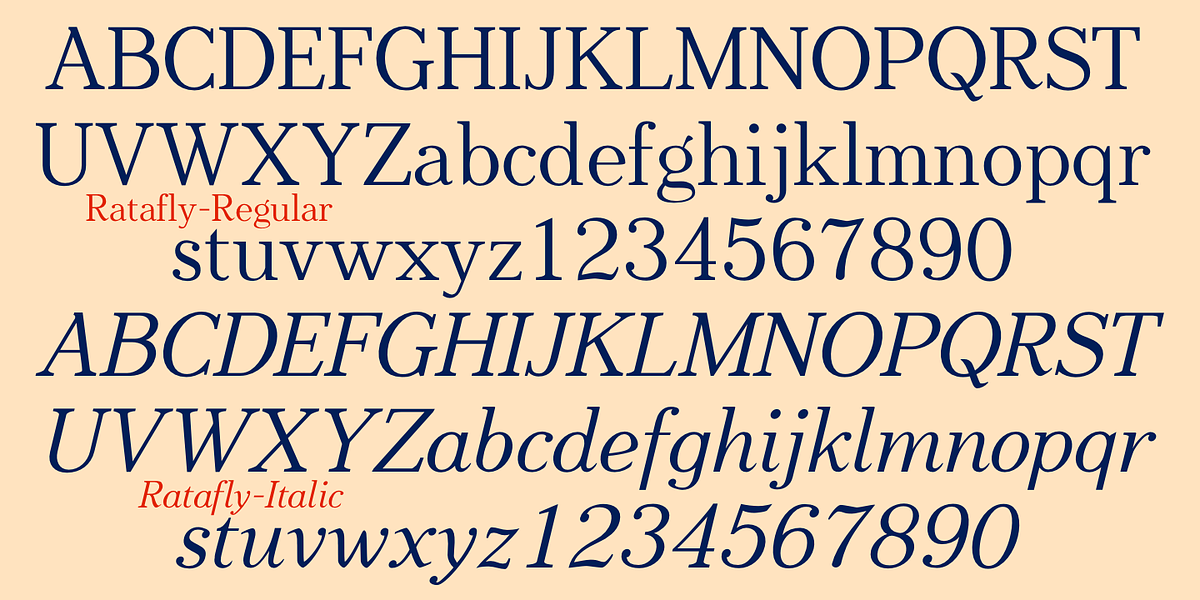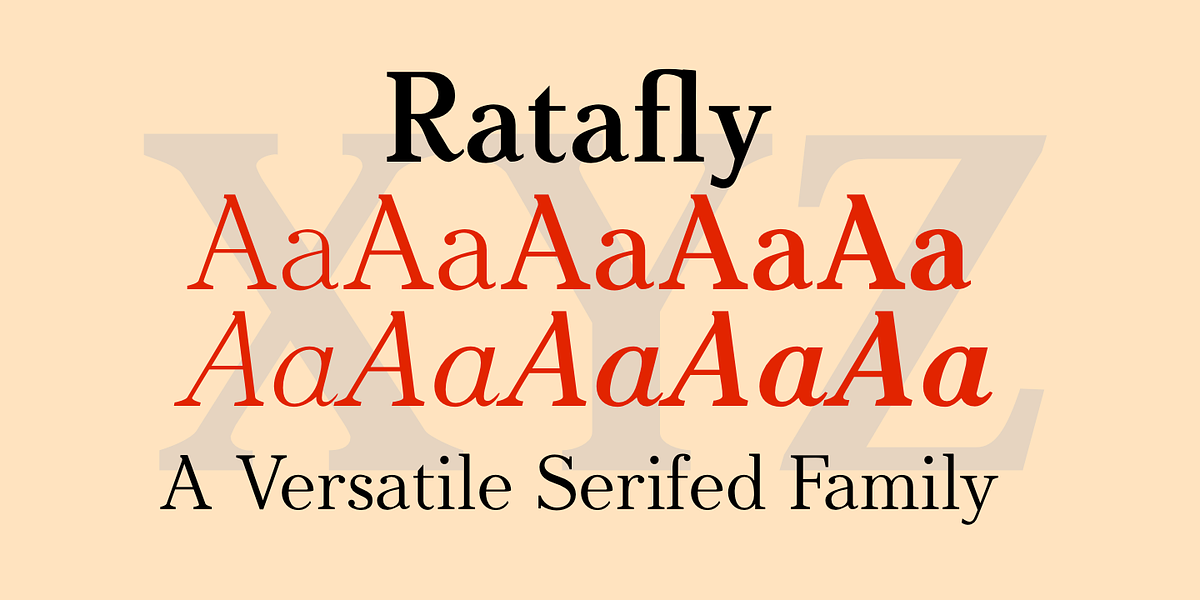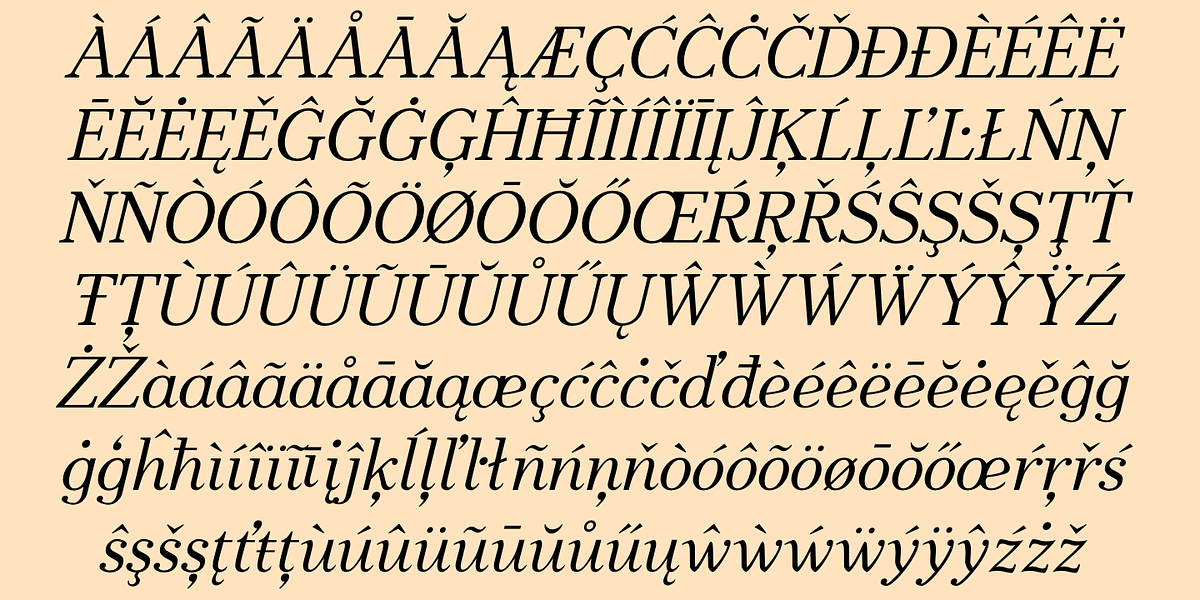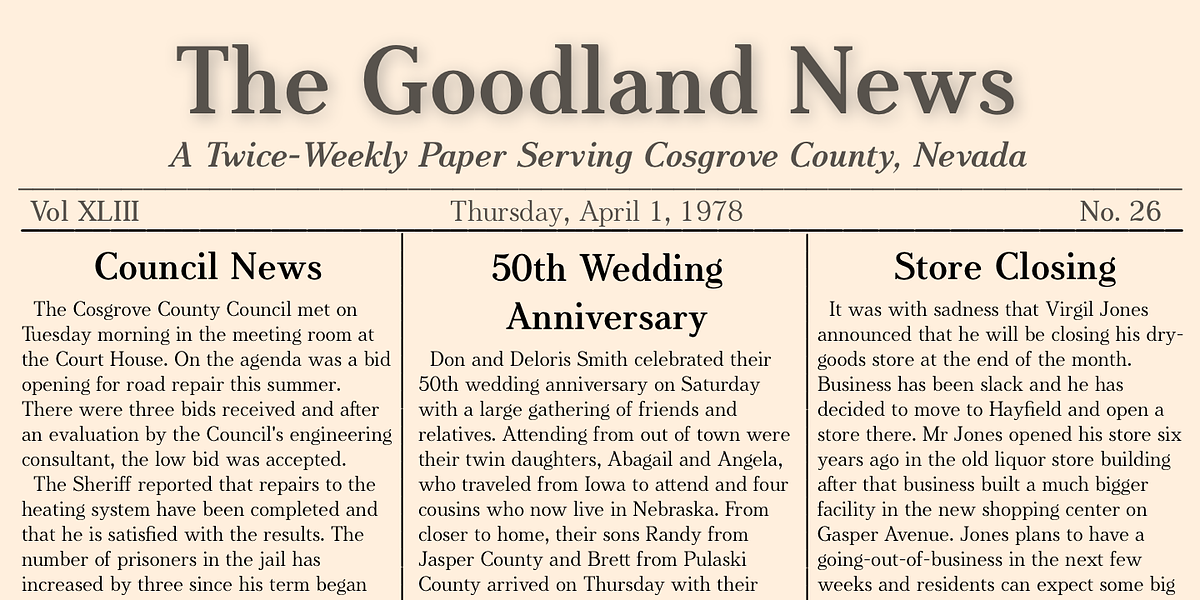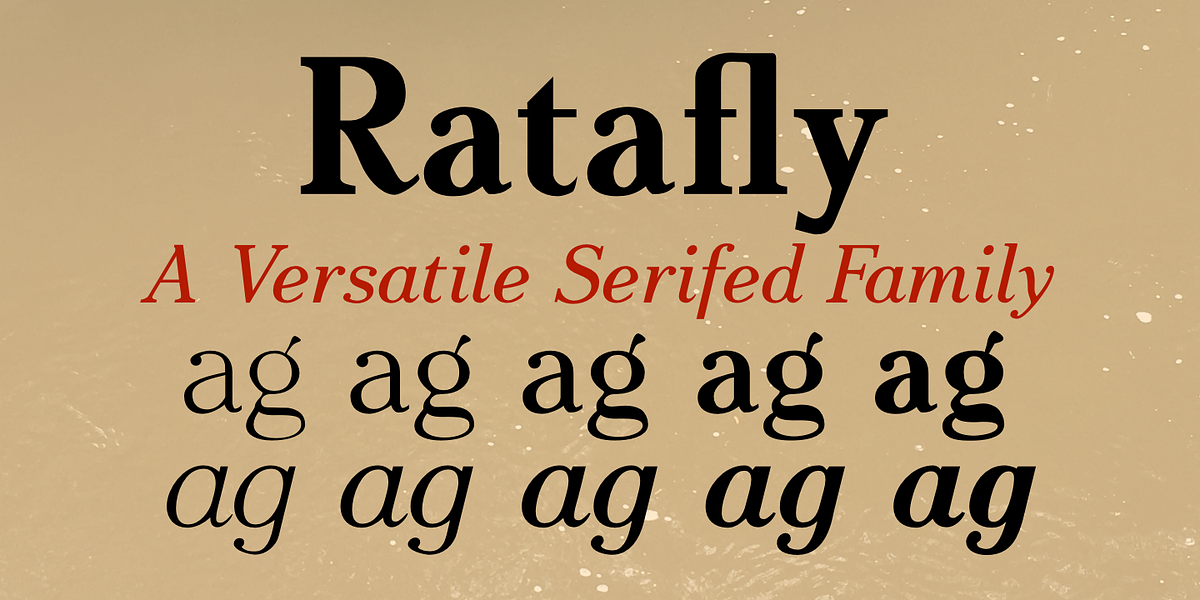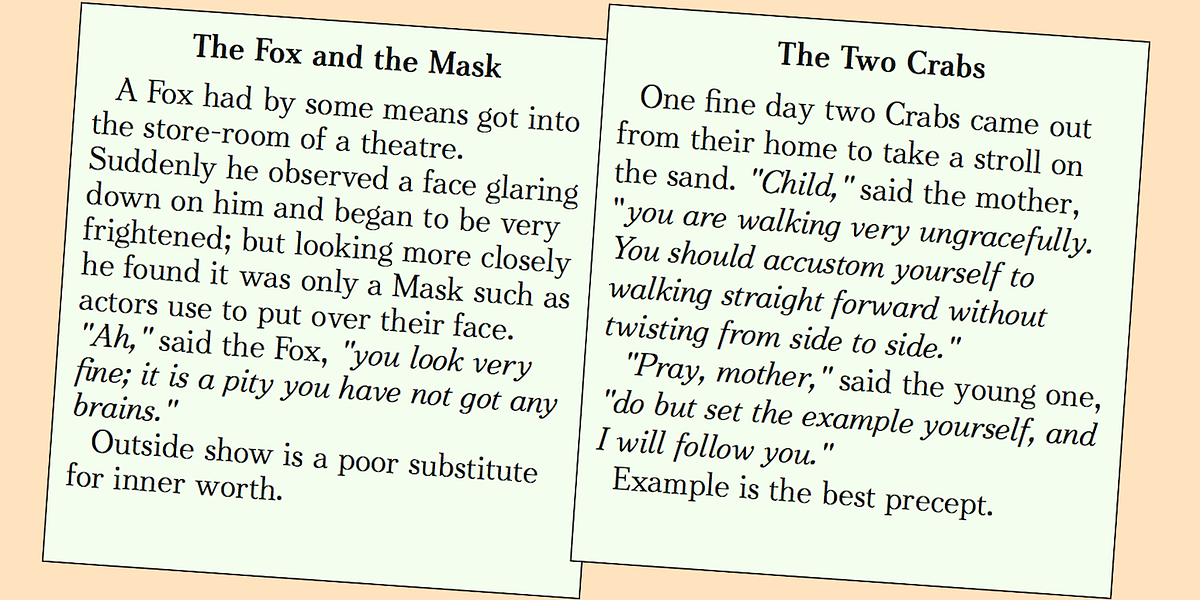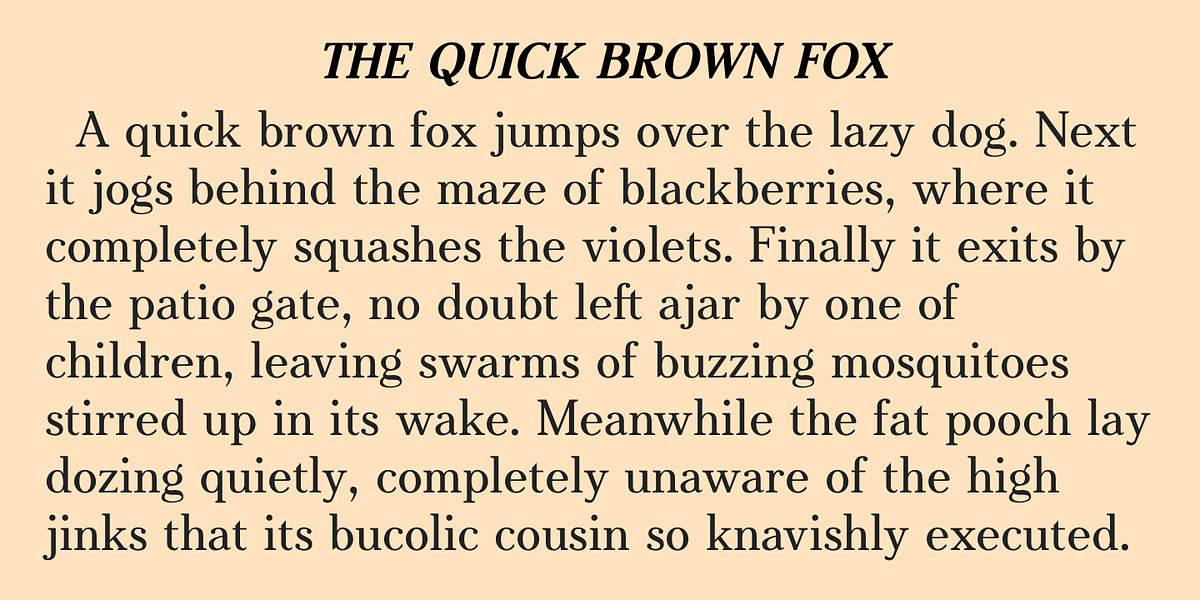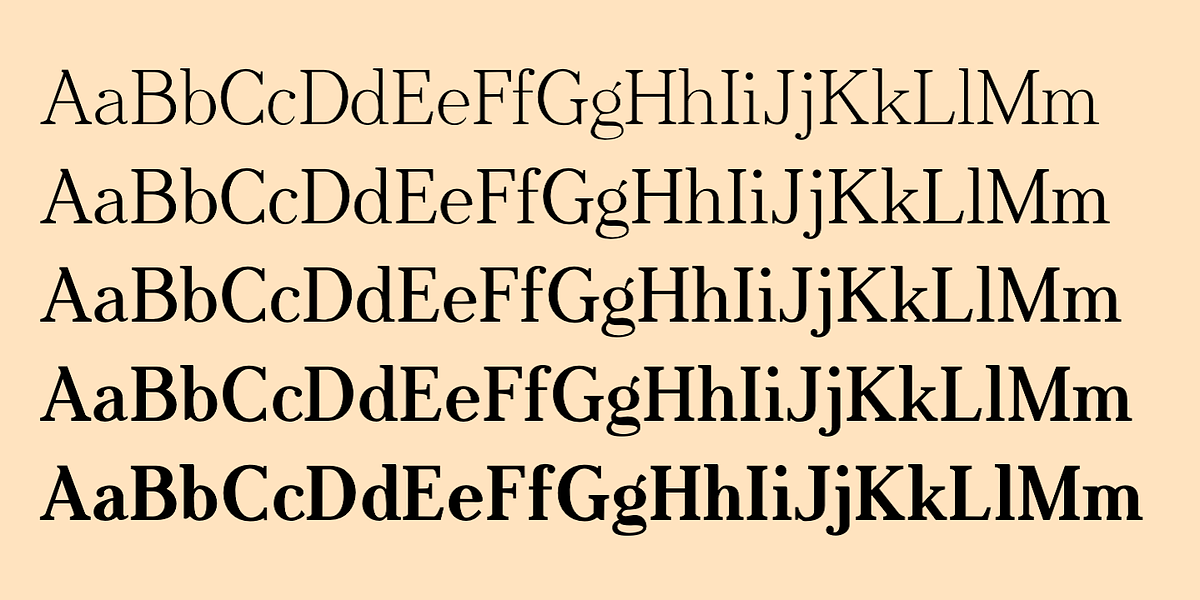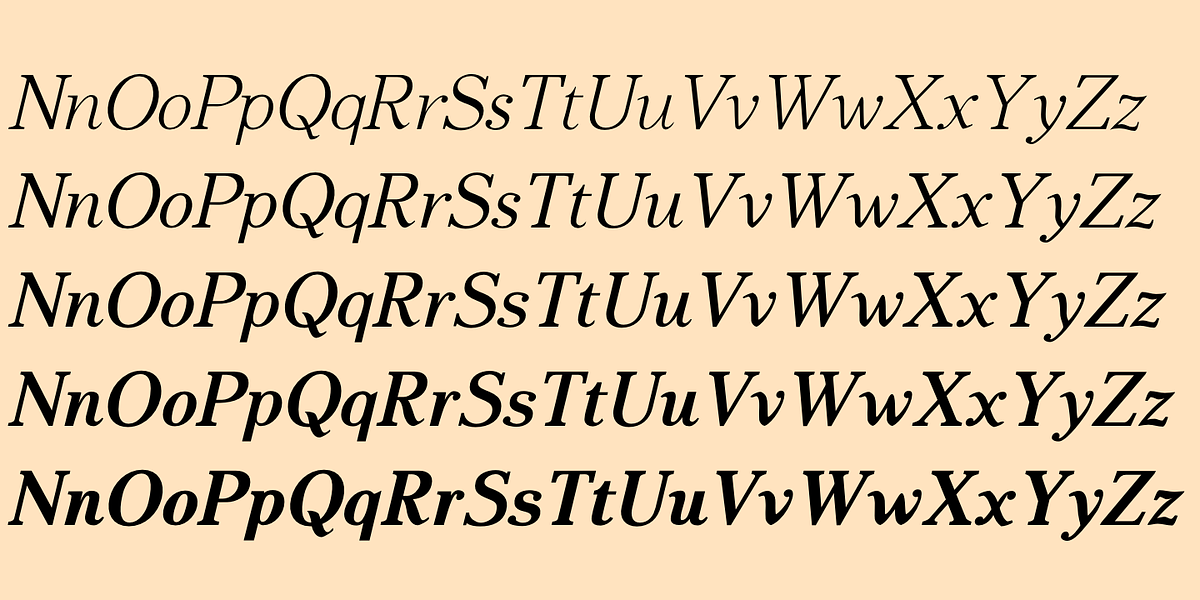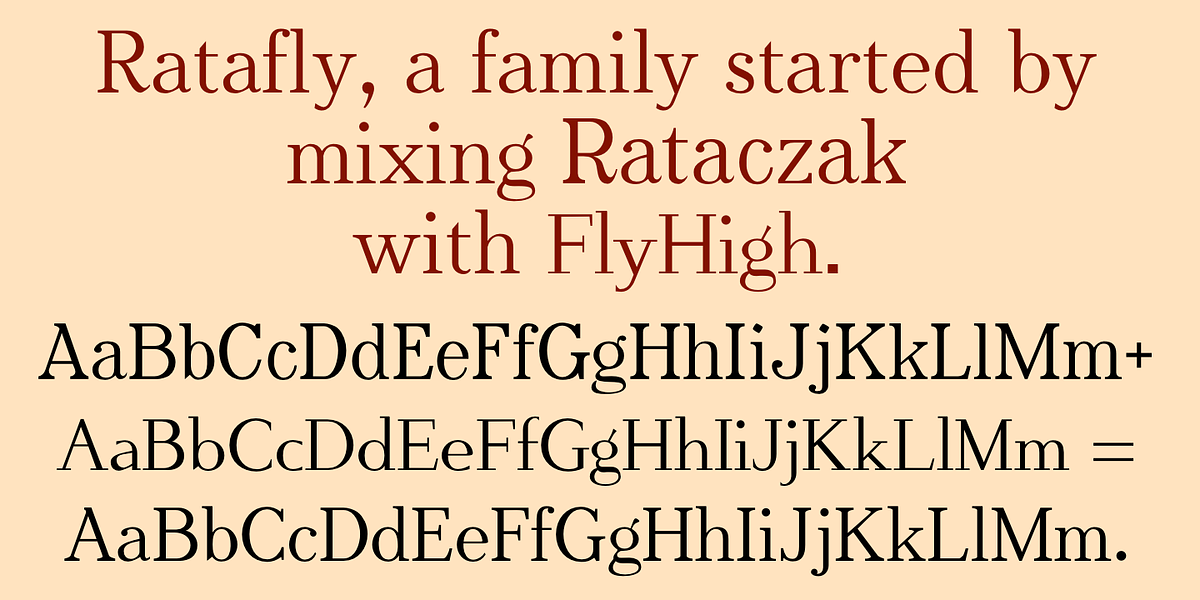
Ratafly
Ratafly is a serif font designed to be both legible for body text and impactful for display use. It was created by blending two existing serif fonts, Rataczak and FlyHigh, resulting in a typeface that offers a balance between the characteristics of its parent fonts.